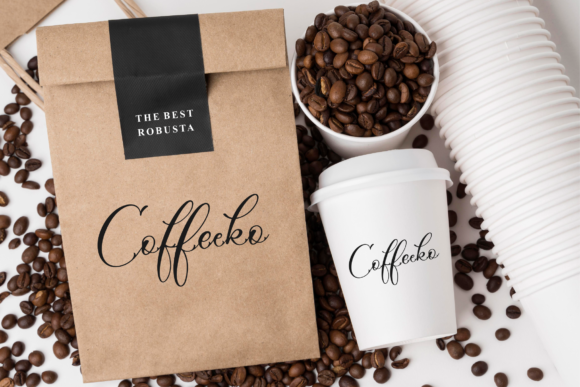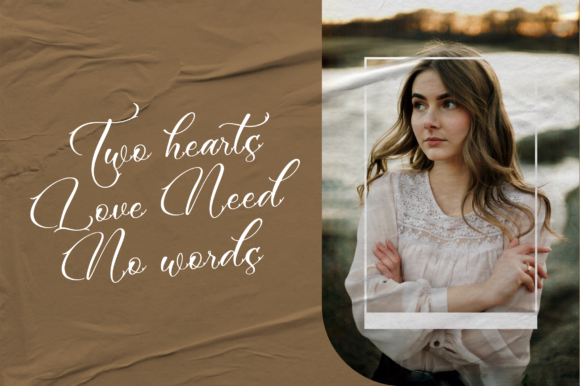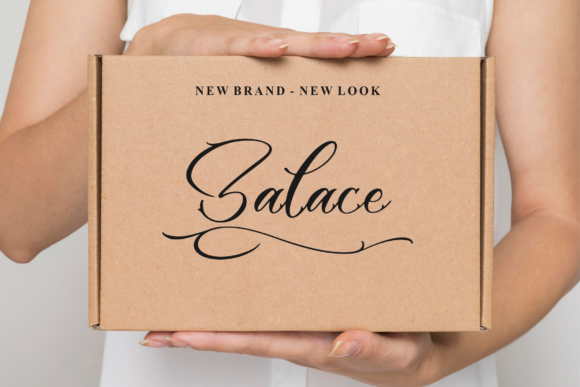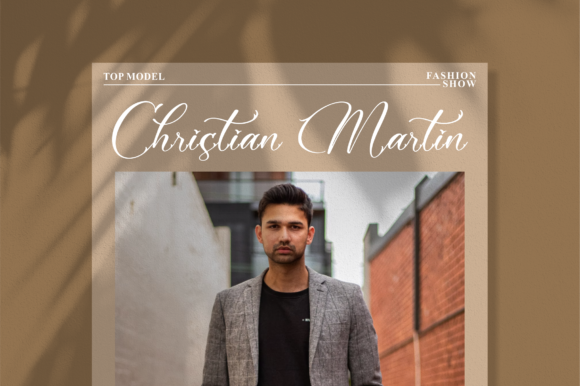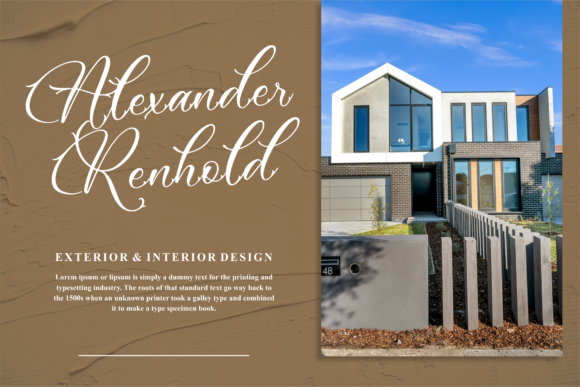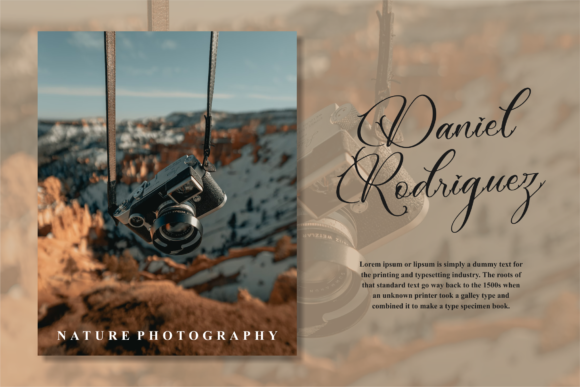
The Elusive Perfect Font: My Encounter with Bonithy Rossela
I’ll never forget the frustration of working on a branding project for a client, only to hit a roadblock: finding the perfect font. The client wanted something elegant, yet playful; something that would capture the essence of their brand without being too over-the-top. I scoured font libraries, tried out countless combinations, and still, nothing seemed quite right. That was until I stumbled upon Bonithy Rossela, a beautiful script font that has since become a staple in my design toolkit.
An Honest Review of Bonithy Rossela
So, what makes Bonithy Rossela so special? Let’s dive into the good stuff and, of course, a few quirks I’ve encountered.
- ✨ Elegant and flowing script style that’s perfect for projects needing a touch of sophistication
- 💫 Highly versatile and suitable for a wide range of projects, from logos and branding to homeware designs and more
- 🎨 Beautifully crafted to add a unique touch to any design
- 🤔 As with any script font, it may not be the best choice for very small text sizes or body text
- ⚠️ Some users might find the font a bit too ornate for certain projects, but this is largely a matter of personal taste
The Story Behind Bonithy Rossela
While the origins of Bonithy Rossela might be shrouded in mystery, it’s easy to imagine a designer pouring their heart and soul into crafting such a beautiful script font. Perhaps they were inspired by the flowing scripts of classic typography, with a modern twist to make it more versatile and user-friendly. Whatever the backstory, it’s clear that Bonithy Rossela was designed with creativity and practicality in mind.
| Q: What is Bonithy Rossela best used for? | A: Bonithy Rossela is highly versatile and can be used for a wide range of projects, including logos, branding, homeware designs, product packaging, and more. |
In conclusion, Bonithy Rossela is a stunning script font that can elevate any design project. With its elegant style, versatility, and ease of use, it’s no wonder it has become a favorite among designers and creative hobbyists alike.